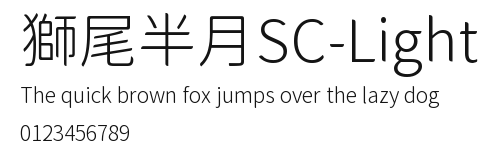
獅尾半月SC-Light Preview
• Font Name: 獅尾半月SC-Light
• Font Style: Light
• Font ID: FontForge 2.0 : Swei Half Moon CJK SC Light : 20-4-2020
• Full Font Name: 獅尾半月SC-Light
• PostScript Name: SweiHalfMoonCJKsc-Light
• Character Count: 44498
About 獅尾半月SC-Light.ttf
獅尾半月SC-Light.ttf is a modern, elegant sans-serif font designed for ultimate readability and visual harmony. Perfect for branding, headlines, web design, and print materials.